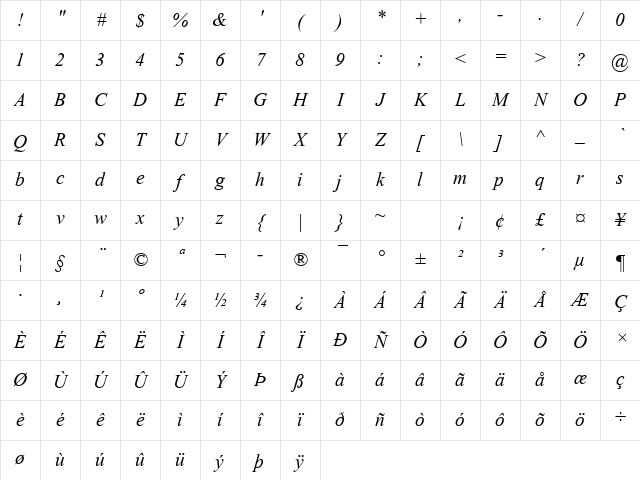
Aparajita Italic
Design Context for Aparajita
Aparajita is a composed and adaptable typeface that performs quietly and consistently across a wide range of design contexts. The slanted form adds forward momentum and visual energy.
Pro Tip: Use Aparajita for emphasis, pull quotes, and subheadings where its slanted energy can add rhythm to the layout.